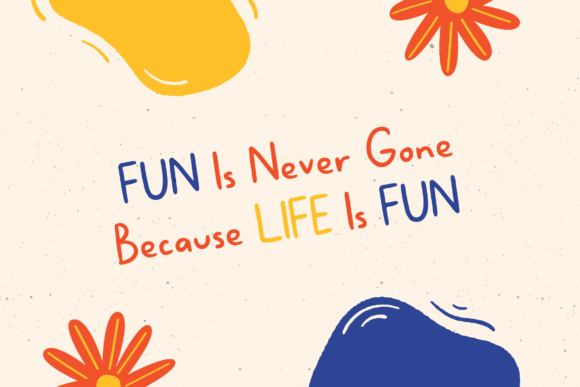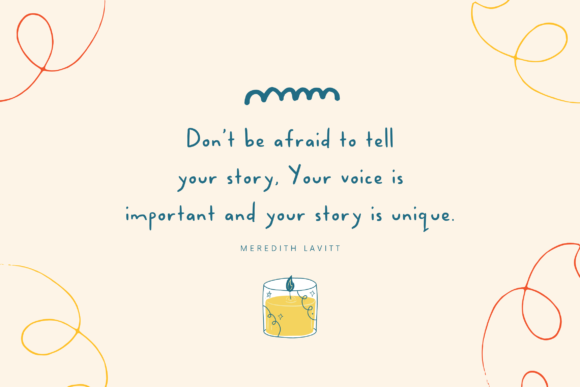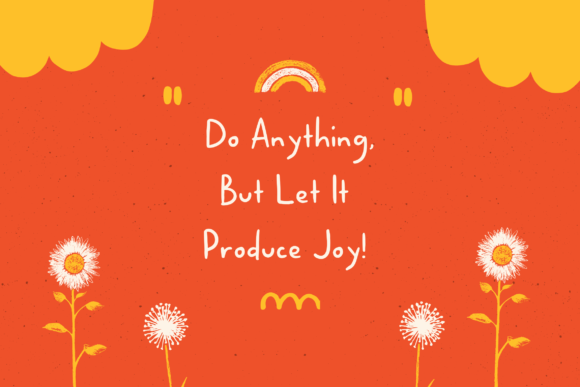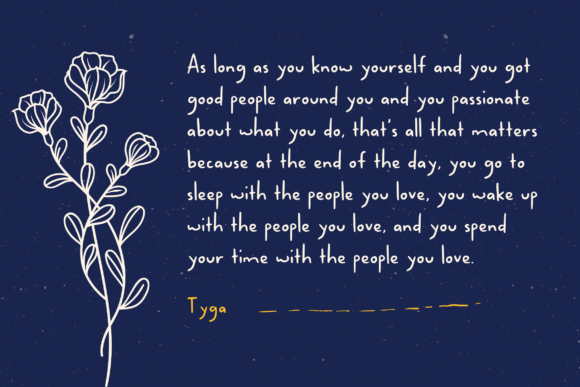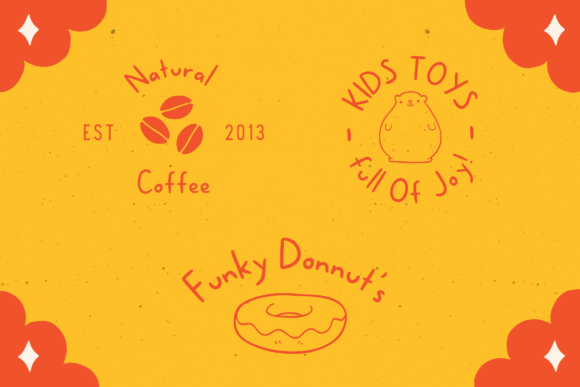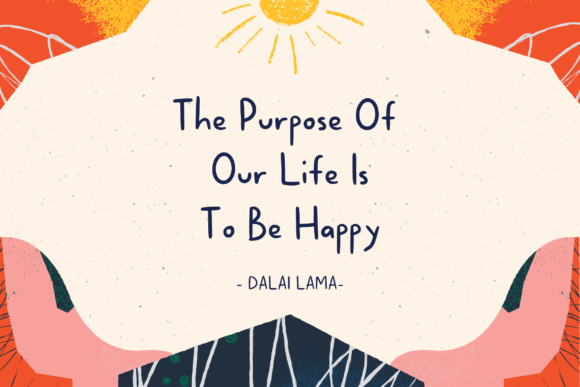
Introduction to Phitaya Font
Have you ever stared at a blank canvas, unsure of where to begin a creative project? The blank page can be daunting, but sometimes all it takes is the right design resource to spark inspiration. That’s where the Phitaya Font comes in – a clean and cute handwritten font that’s perfect for adding a touch of personality to your work.
As designers, we’re always on the lookout for high-quality fonts that can elevate our creative ideas and make them stand out. The Phitaya Font is a valuable addition to any design arsenal, offering a unique and playful style that’s perfect for a wide range of projects, from social media graphics to wedding invitations. And the best part? It’s available for free download, making it a transparent and accessible design resource for designers of all levels.
- Features a unique and elegant design, making it suitable for a wide range of creative applications.
Honest Review: Phitaya Font
I recently stumbled upon the Phitaya Font and was excited to give it a try in my creative project. I was looking for a free download that would add some flair to my design, and this font definitely delivered.
One of the things that I loved about the Phitaya Font is its high quality and unique style. The font is perfect for creating a modern and trendy look, and it’s great for both digital and print designs. The font is also available for free download, which is a huge plus in my book!
- ✨ High quality design that’s perfect for modern designs
- ✨ Unique and creative style that’s great for making a statement
- ⚠️ Limited character set, which may not be suitable for longer texts
Overall, I was really impressed with the Phitaya Font and would definitely recommend it to designers looking for a high-quality, unique font for their creative project.
Common Use Cases for Phitaya Font
The Phitaya Font is ideal for use in logos, branding materials, and marketing materials. Its high-quality design makes it perfect for creating professional and visually appealing designs.